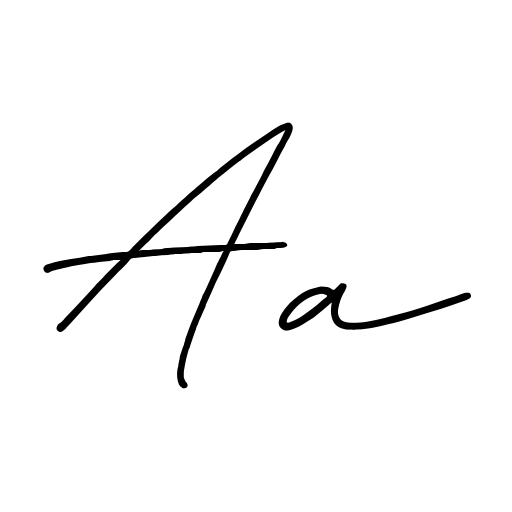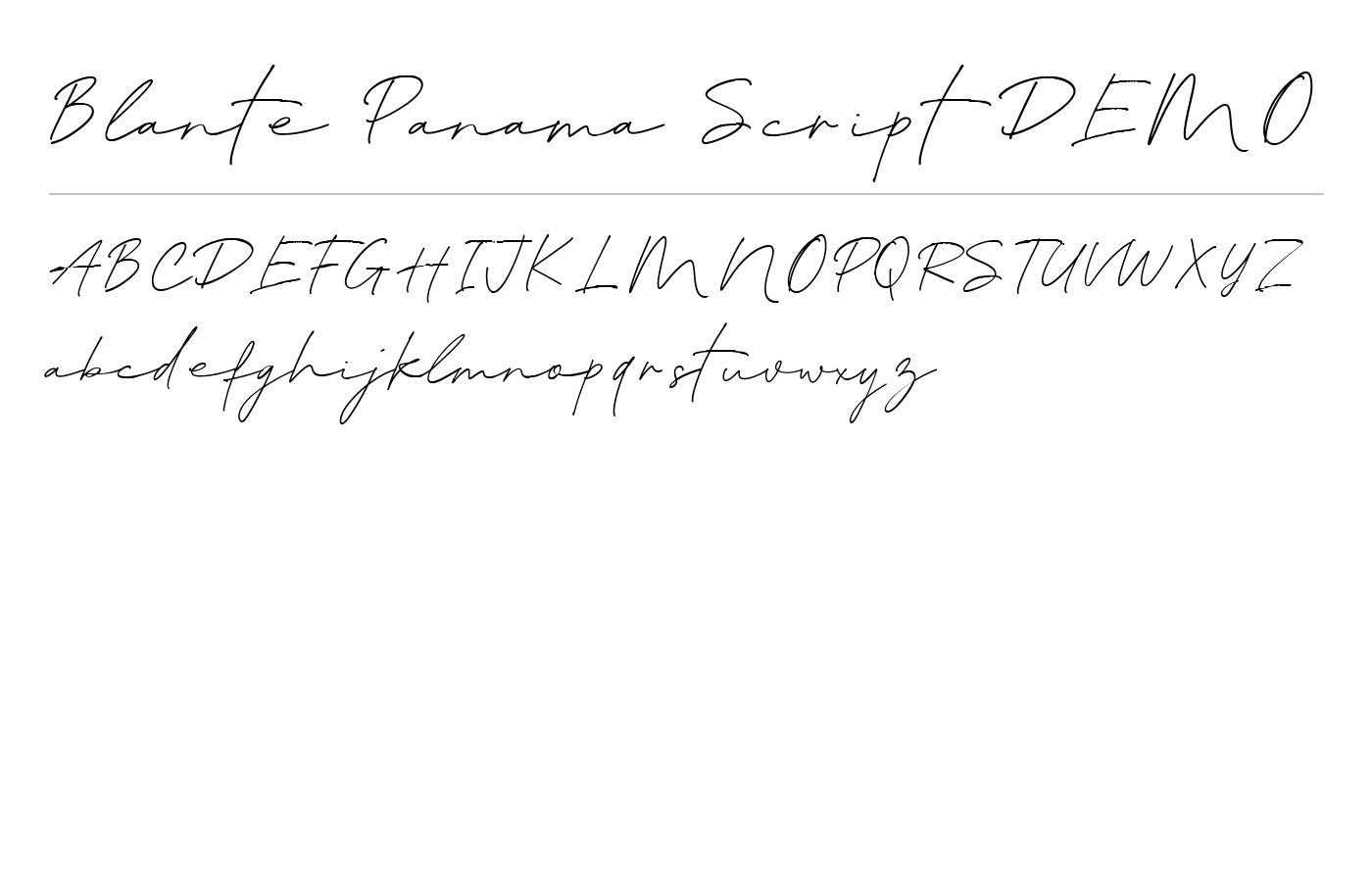
Blante Panama Script DEMO is a delicate and elegant handwritten script font characterized by its thin strokes and airy, flowing style. It conveys a modern, personal touch with a natural, slightly casual feel, making it ideal for use in invitations, branding, and creative projects that require a refined yet approachable look. This font works especially well in contexts where a handwritten aesthetic adds warmth and sophistication without overpowering the design.
Blante Panama Script DEMO Font
About Blante Panama Script DEMO Font
| Designer | Konstantine Studio |